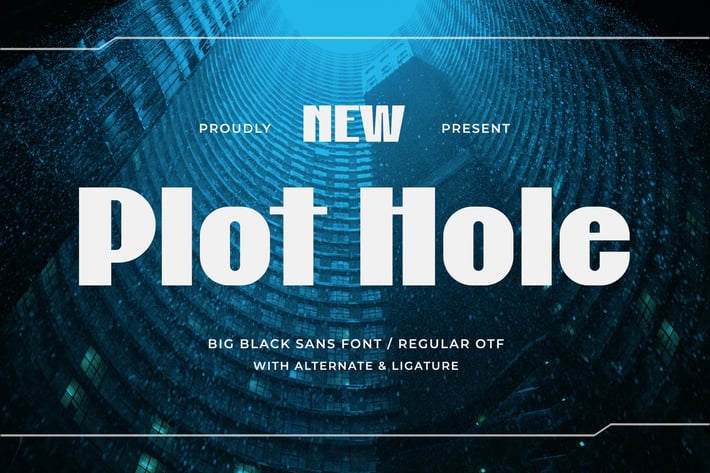
Plot Hole - Big Black Sans Font
Introducing "Plot Hole" - a big black sans font that fills the gaps in your designs with boldness and impact!
With its robust and commanding letterforms, "Plot Hole" makes a strong statement in any project. Each character is meticulously crafted with boldness and simplicity, making it perfect for attention-grabbing headlines, powerful posters, modern branding, and more.
Embrace the versatility of "Plot Hole" as it effortlessly fills your designs with a touch of sophistication. Whether you're working on editorial layouts, urban graphics, minimalist logos, or striking packaging, this font will captivate your audience with its big and impactful style.
Bridge the gaps in your designs with "Plot Hole" and let your creativity flow!
– Lowercase
– Ligature
– Alternate
– Multilingual Support